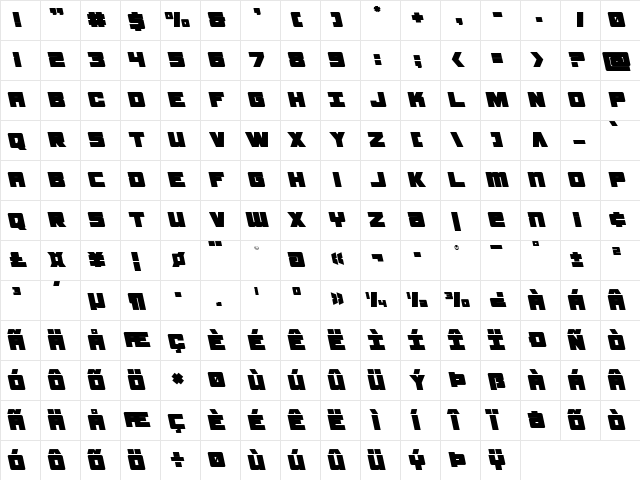
Samurai Terrapin Leftalic Italic
Design Context for Samurai Terrapin Leftalic Typeface
Samurai Terrapin Leftalic is a composed and adaptable typeface that performs quietly and consistently across a wide range of design contexts. Its italic angle brings a sense of urgency and motion to the letterforms.
Pro Tip: Try Samurai Terrapin Leftalic for annotation and caption copy alongside an upright companion — the contrast in angle creates a dynamic but ordered typographic system.